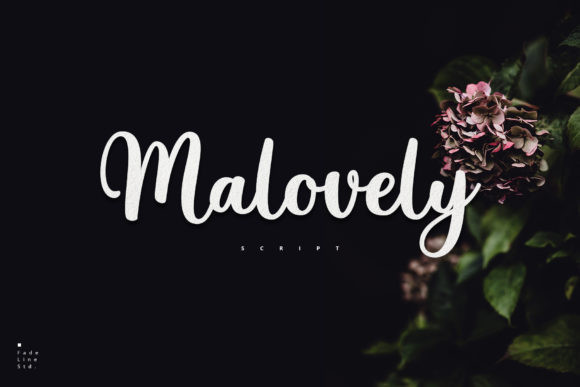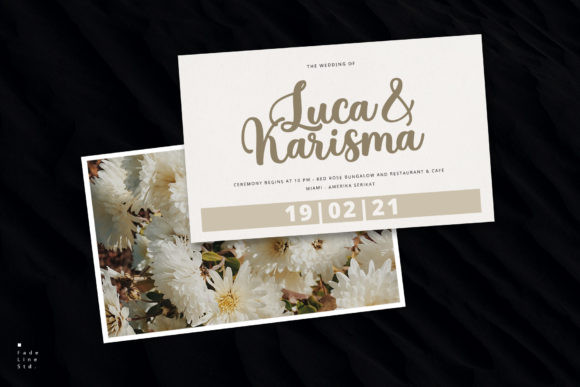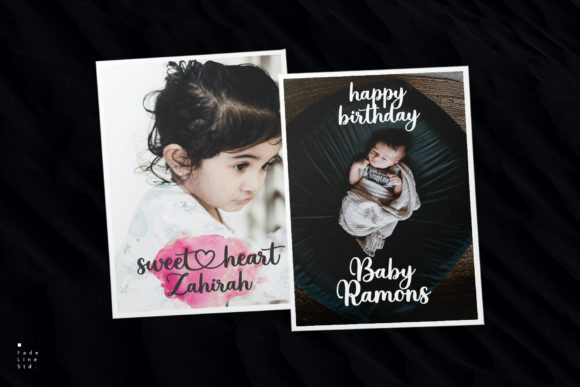
Malovely Font
Malovely FontMalovely is a graceful and sweet handwritten font. Its distinct and well rounded letters make this font a masterpiece. Fall in love with its incredibly versatile style and use it to create spectacular designs!